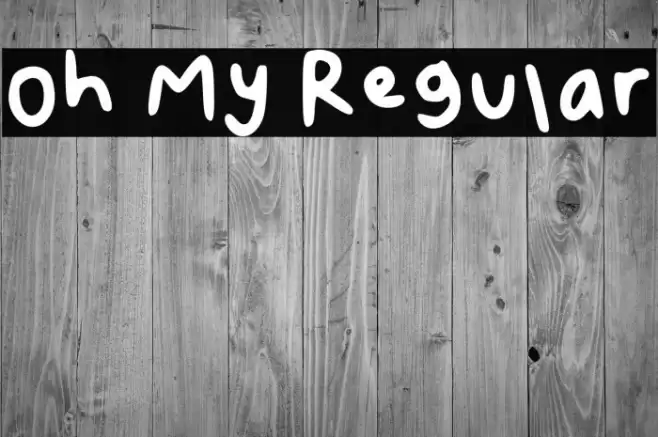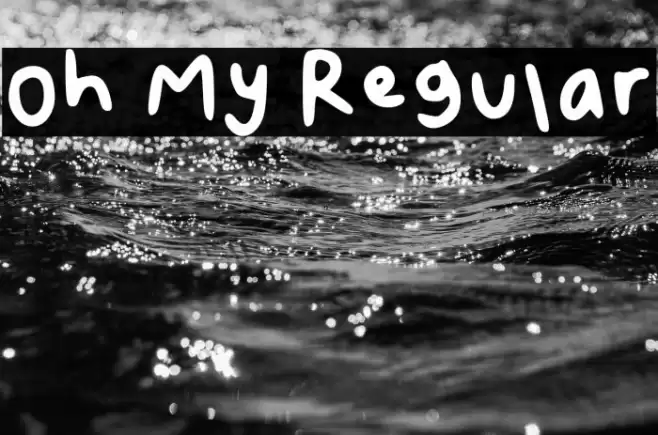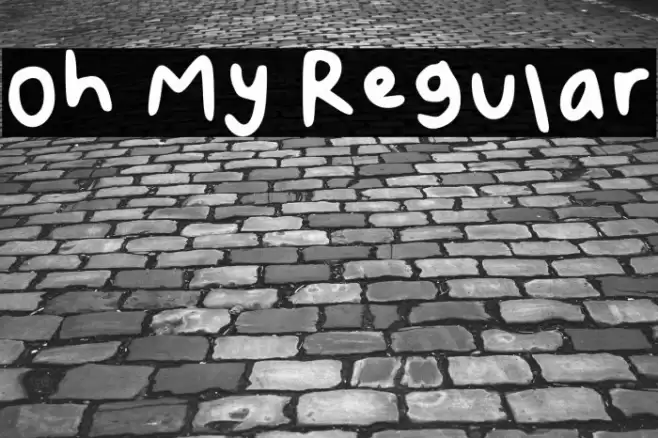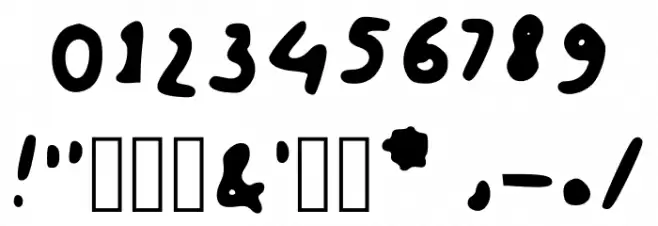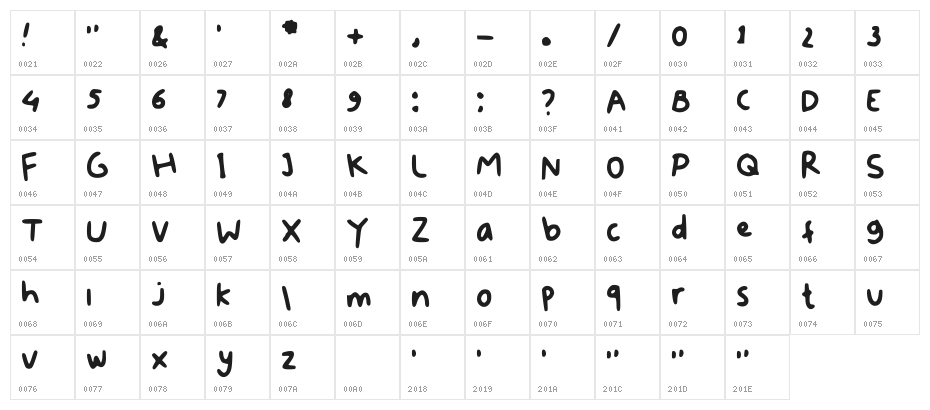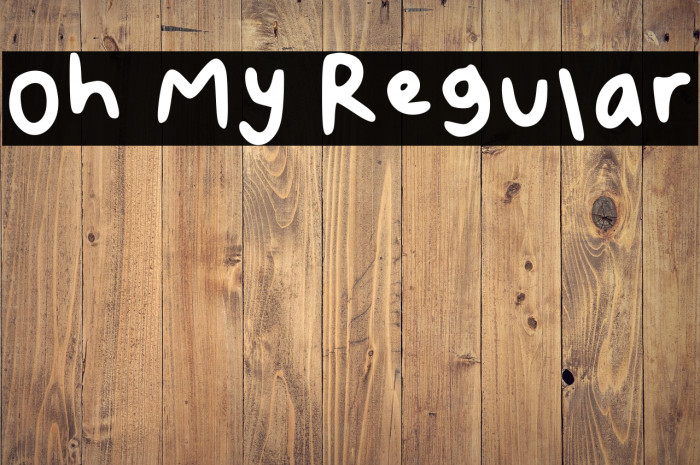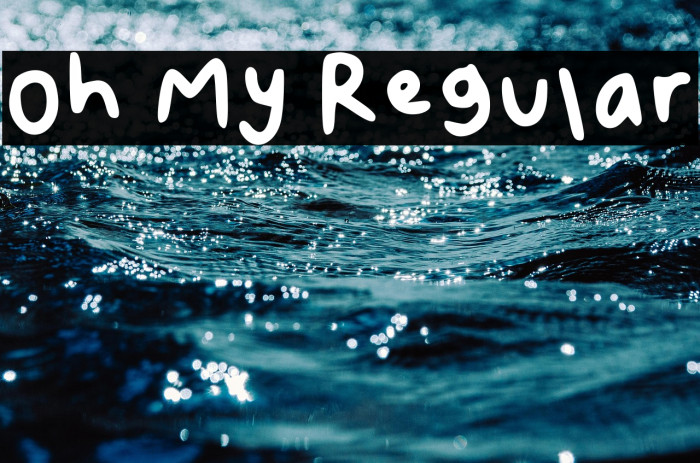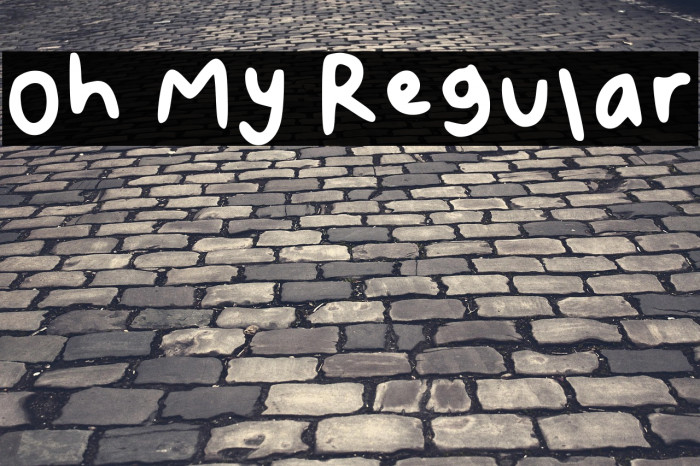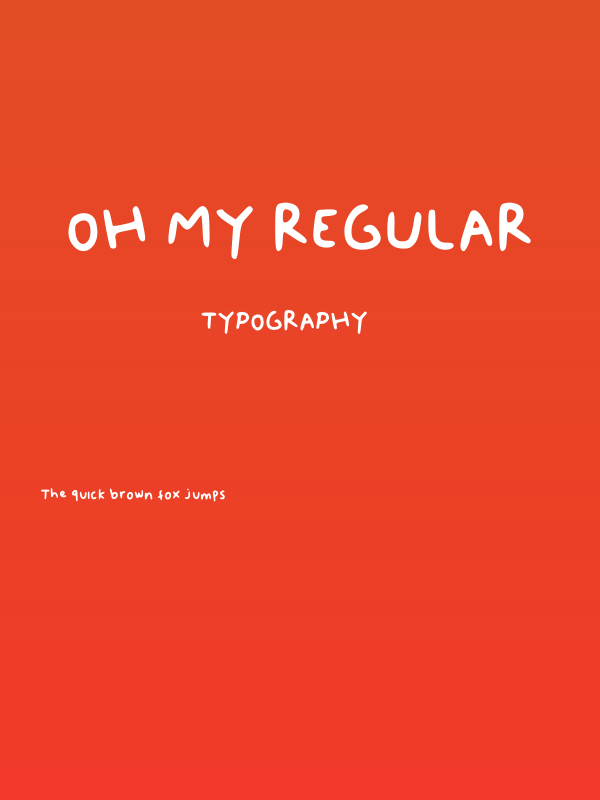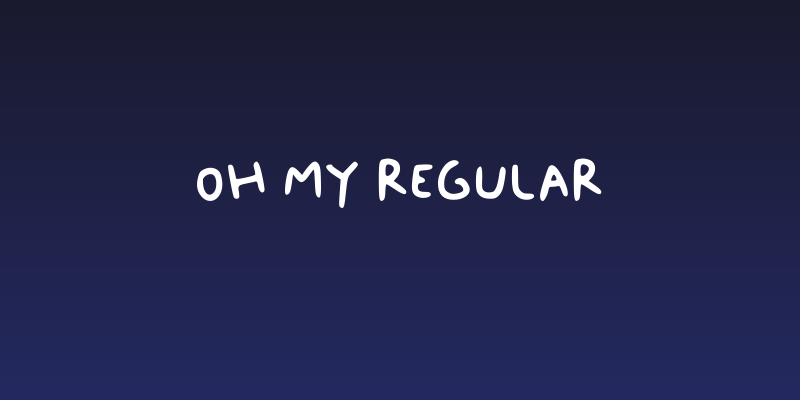
Oh My Regular Font
Oh My Regular Description
This font features a playful and casual handwritten style, characterized by its rounded and slightly irregular letterforms. The strokes are bold and consistent, giving it a friendly and approachable appearance. The uppercase and lowercase letters maintain a uniform height, while the numbers and special characters complement the overall aesthetic. The font's informal nature makes it suitable for projects that require a personal touch, such as greeting cards, invitations, or children's book illustrations. Its simplicity and charm make it versatile for various creative applications.
A playful, handwritten font with bold, rounded strokes and a casual style from Regular fonts.
- Proposed Projects: Ideal for greeting cards, invitations, children's books, and playful branding.
- Overall Style: Casual, Playful
- Use Case: Headlines, Logos, Invitations